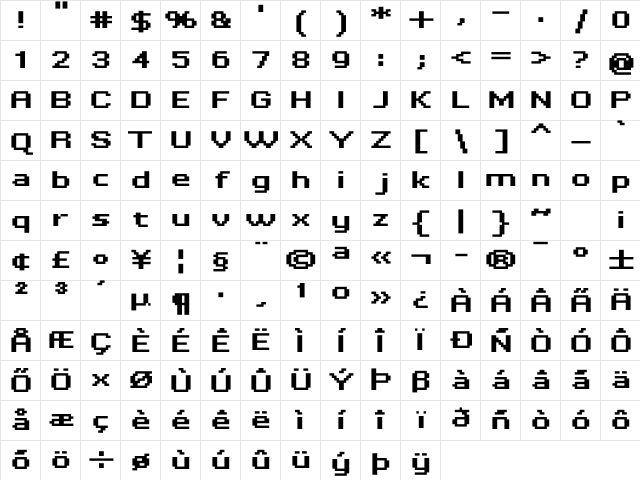
Tenacity Extended Bold Free Font
Tenacity Extended Bold
Tenacity Extended Family
Tenacity Extended Bold
Design Context for Tenacity Extended
Tenacity Extended is a composed and adaptable typeface that performs quietly and consistently across a wide range of design contexts. Its bold stroke weight gives it real presence on the page.